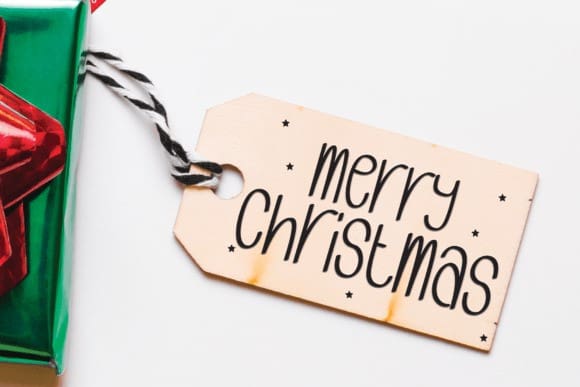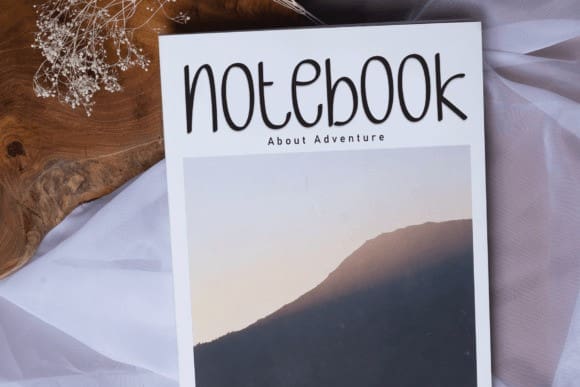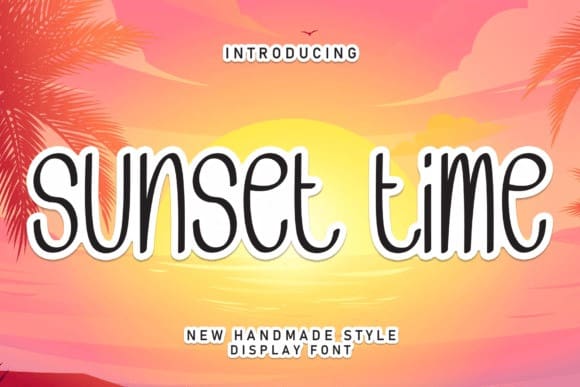
Sunset Time Font
Sunset Time Font is a sweet and friendly handwritten font. Cute and fun, this font is ideal for writing wedding invitations, cards, or any other design that might need a fun touch!